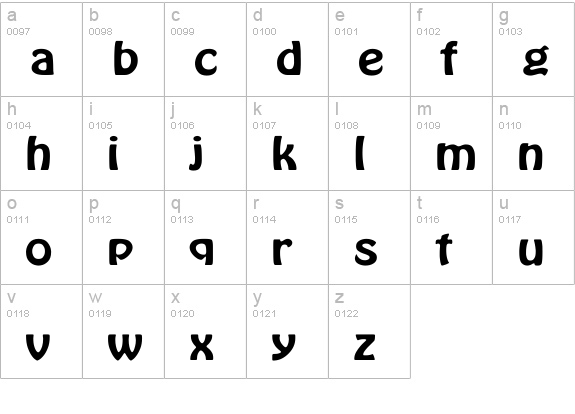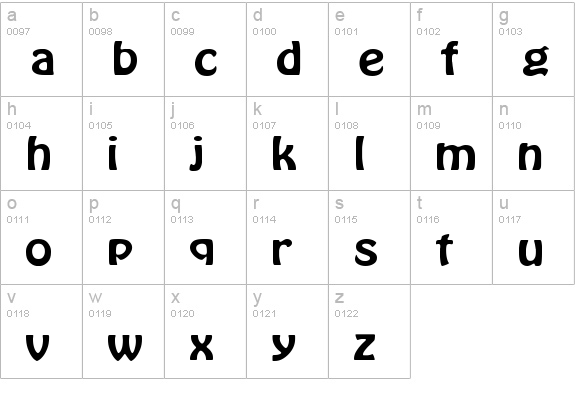
Hobo Wd Font Details
Hobo Wd font is a unique and quirky typeface that exudes a sense of individuality and creativity. Its bold and slightly distorted letterforms give it a distinct character that is perfect for making a statement in your designs. This versatile font is ideal for a variety of projects, from branding to signage to social media graphics. What sets Hobo Wd font apart is not just its striking appearance, but also the fact that it is available for free download at FontsMarket.com. Yes, you read that right – you can get your hands on this eye-catching font at no cost at all. So why wait? Add a touch of personality to your designs with Hobo Wd font today!